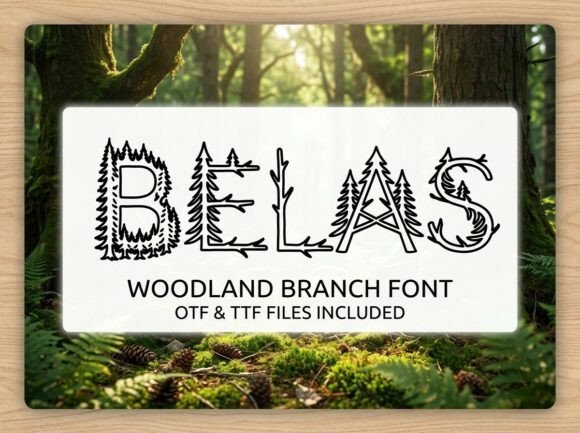
Get Ready to Unleash Your Inner Wild Child
Have you ever found yourself standing at the edge of a dense forest, feeling the rush of the unknown and the thrill of the untamed? That’s exactly the creative moment that inspired the Belas Font, a rustic display typeface that embodies the spirit of the great outdoors.
Belas Font is more than just a font – it’s a way to connect with nature and bring its essence to your designs. With its bold letterforms constructed from hand-drawn pine trees, jagged branches, and forest foliage, this font is perfect for independent national park branding, camping gear logos, and wilderness retreat identities. For designers, Belas Font offers a unique opportunity to tap into the wild and unleash their creativity.
Whether you’re working on a project that requires a sense of adventure or simply want to add some organic flair to your designs, Belas Font is the perfect choice. Its heavy illustrative weight and outdoor personality make it a valuable addition to any designer’s toolkit.
Key Features of “Belas Font”
- Unique Characteristics: Belas Font features a unique blend of modern and vintage elements, with intricate details and ornaments.
Belas Font Review
First of all, I want to say that I’m really impressed with the overall aesthetic of Belas Font. The unique blend of modern and vintage elements is ✨ stunning ✨. The font’s bold lines, rounded edges, and intricate details create a visually appealing look that’s perfect for a wide range of design applications.
Here are some of the things that I love about Belas Font:
- ✨ Unique design that stands out from more generic fonts
- ✨ Perfect for use in titles, headings, and other display text
- ✨ Highly customizable, with a range of OpenType features and ligatures
That being said, I do have a few reservations about Belas Font. For example:
- ⚠️ Limited legibility in smaller text sizes
- ⚠️ Can be a bit too ornate for certain design applications
- ⚠️ May not be suitable for body text, due to its decorative nature
Overall, I think Belas Font is a great choice for designers who want to add a touch of elegance and sophistication to their work. However, it’s not a one-size-fits-all solution, and you should carefully consider its limitations before using it in your projects.
Belas Font is a versatile font that can be used in a variety of design projects, including:
– Headings and titles
– Body text and paragraphs
– Logos and branding
For optimal results, use Belas Font in combination with other fonts that have a similar style and feel.
Experiment with different font sizes and styles to create a visually appealing design.
Alternatives to Belas Font
Playfair Display is a high-end, elegant serif font ideal for headings and titles. It features intricate details and luxurious feel, making it perfect for luxury brands, fashion, and high-end products. When to use: Headings, titles, luxury branding.
Comparison to Belas Font: While Belas Font is also a serif font, Playfair Display has a more luxurious and elegant feel, making it a better choice for high-end branding and products.
Montserrat is a modern sans-serif font designed for digital use. It’s clean, minimalist, and highly legible, making it perfect for body text and digital interfaces. When to use: Body text, digital interfaces, modern branding.
Comparison to Belas Font: Montserrat is a more modern and minimalist alternative to Belas Font, making it a better choice for digital interfaces and modern branding.
Merriweather is a classic serif font with a warm and traditional feel. It’s perfect for body text and is highly legible in print. When to use: Body text, print materials, traditional branding.